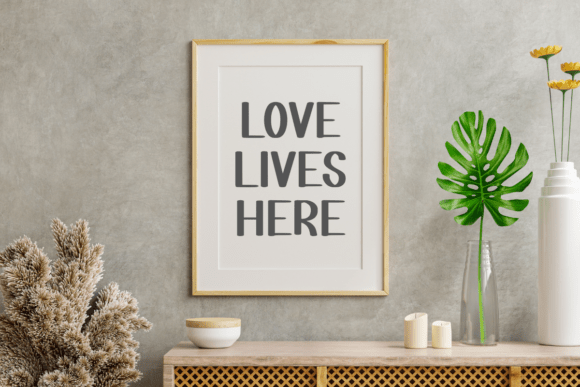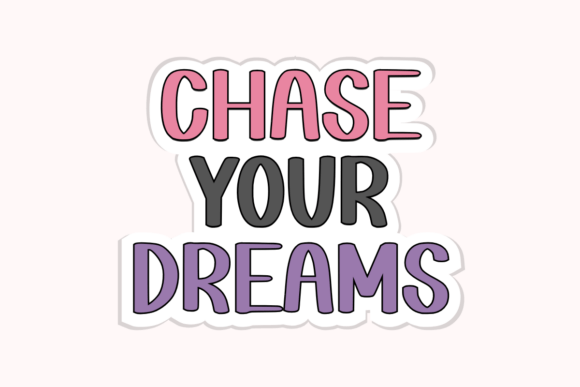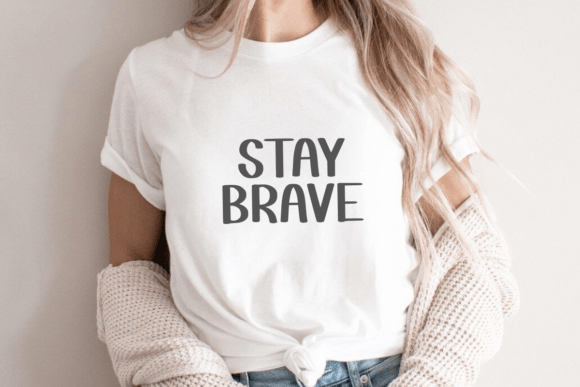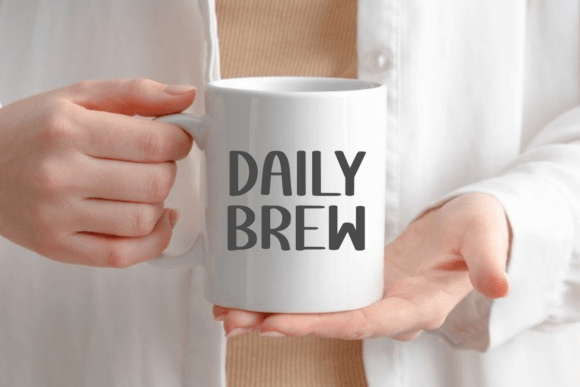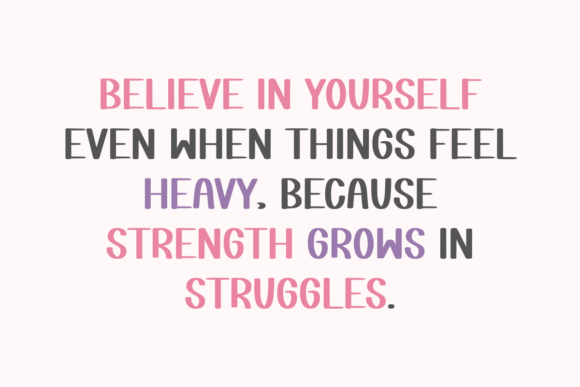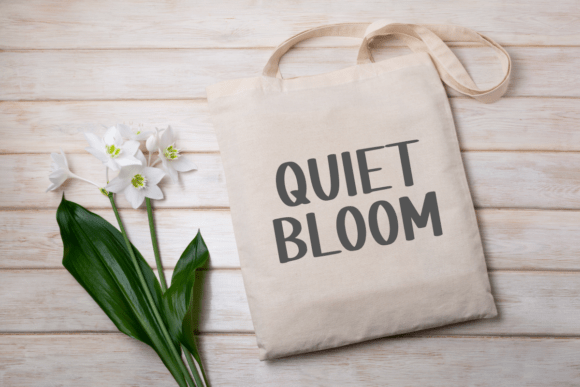
Cupid Script Font: The Perfect Handwriting Font for Crafty Projects
Are you a crafter, designer, or DIY enthusiast looking for a font that can add a personal touch to your projects? Look no further than Cupid Script Font, a cute sans serif handwriting font designed to bring a soft, friendly, and natural look to your creations. In this article, we’ll explore the features and benefits of Cupid Script Font, and how it can elevate your craft projects, planners, stickers, kids’ worksheets, classroom printables, and DIY designs.
What is Cupid Script Font?
Cupid Script Font is a beautifully designed handwriting font that boasts a warm, handcrafted feel. Its simple strokes and smooth curves make it easy to read and perfect for a variety of applications. The font’s soft and friendly appearance is ideal for crafty projects that require a personal touch. Whether you’re creating quotes, greeting cards, kids’ labels, coloring pages, worksheets, bullet journals, scrapbooks, or playful graphic projects, Cupid Script Font is the perfect choice.
Key Features of Cupid Script Font
- Cute and Friendly Design: Cupid Script Font features a unique and adorable design that is sure to capture the hearts of crafters and designers alike.
- Soft and Natural Look: The font’s soft and natural appearance makes it perfect for craft projects, planners, stickers, kids’ worksheets, and classroom printables.
- Easy to Cut: Cupid Script Font’s simple strokes and smooth curves make it easy to cut using Cricut and Silhouette machines.
- Handcrafted Feel: The font brings a warm, handcrafted feel to your projects, making them look like they were made with love.
Perfect for Crafting Moms and Designers
Cupid Script Font is a dream come true for crafting moms and designers who love working with adorable handwritten styles. The font’s playful and friendly design makes it perfect for a variety of projects, including:
- Kids’ Worksheets and Classroom Printables: Create engaging and interactive worksheets and printables for kids with Cupid Script Font.
- Planners and Bullet Journals: Add a personal touch to your planners and bullet journals with this beautiful handwriting font.
- Stickers and Labels: Use Cupid Script Font to create adorable stickers and labels for kids’ projects and DIY designs.
- Scrapbooks and DIY Designs: Add a touch of warmth and personality to your scrapbooks and DIY designs with this lovely font.
Tips for Using Cupid Script Font
Here are some tips for getting the most out of Cupid Script Font:
- Pair with Other Fonts: Experiment with pairing Cupid Script Font with other fonts to create unique and interesting combinations.
- Use for Quotes and Greeting Cards: Use Cupid Script Font to add a personal touch to quotes and greeting cards.
- Experiment with Colors: Try out different colors and color combinations to add visual interest to your projects.
In conclusion, Cupid Script Font is a versatile and adorable handwriting font that is perfect for crafty projects, designers, and DIY enthusiasts. Its soft and friendly design, easy-to-cut features, and handcrafted feel make it a must-have font for anyone looking to add a personal touch to their creations. Whether you’re creating kids’ worksheets, planners, stickers, or DIY designs, Cupid Script Font is the perfect choice. So why wait? Download Cupid Script Font today and start creating beautiful, one-of-a-kind projects that are sure to delight!